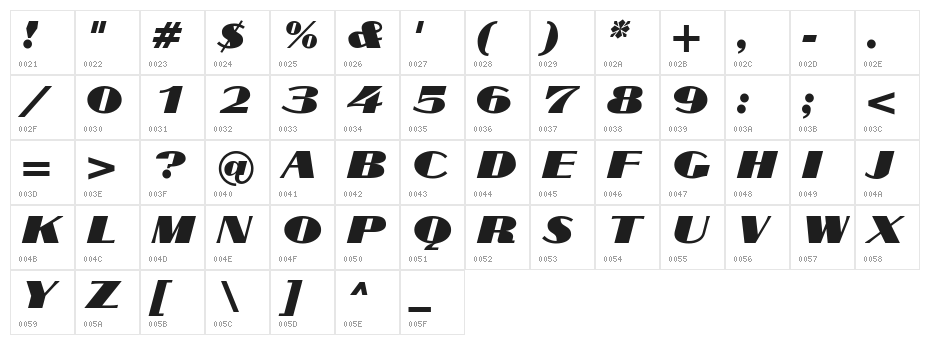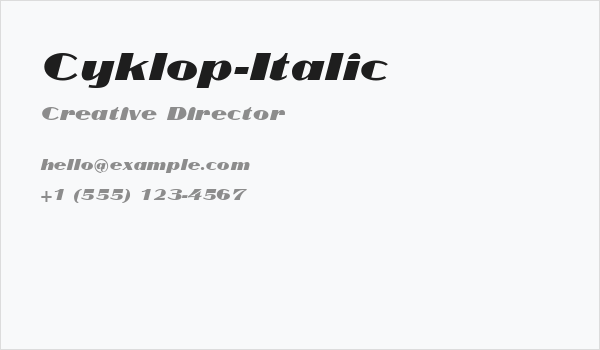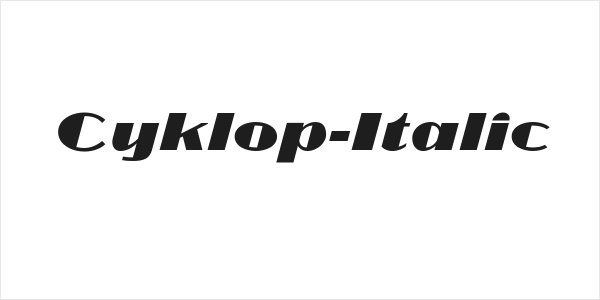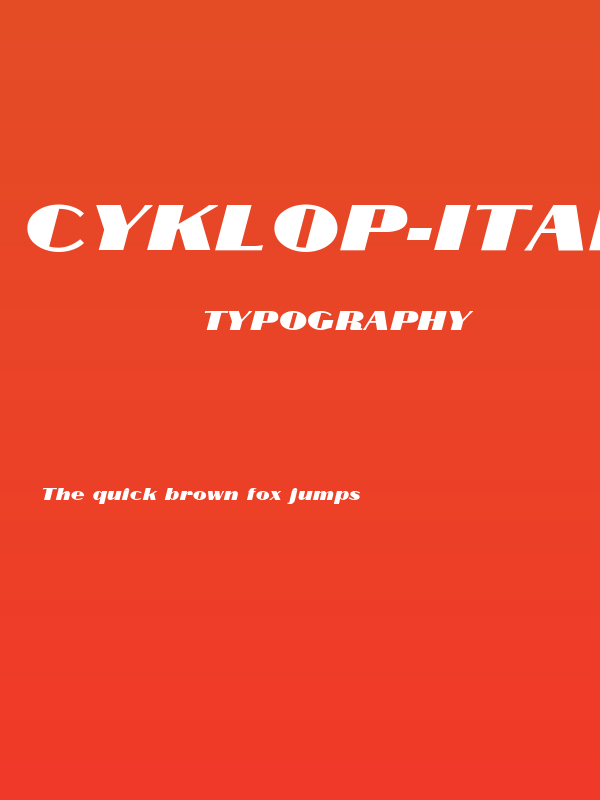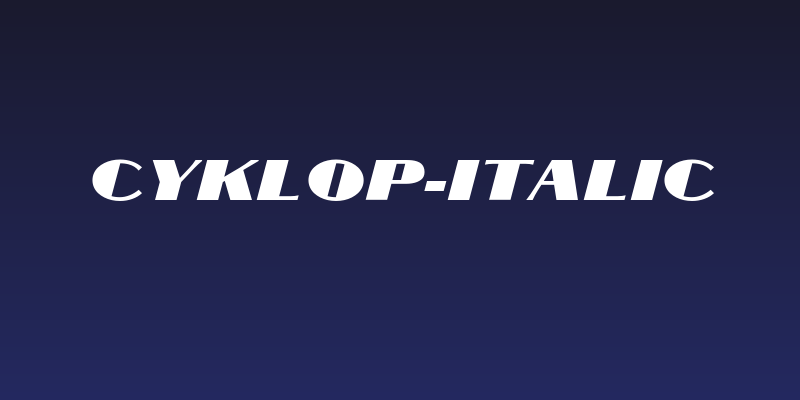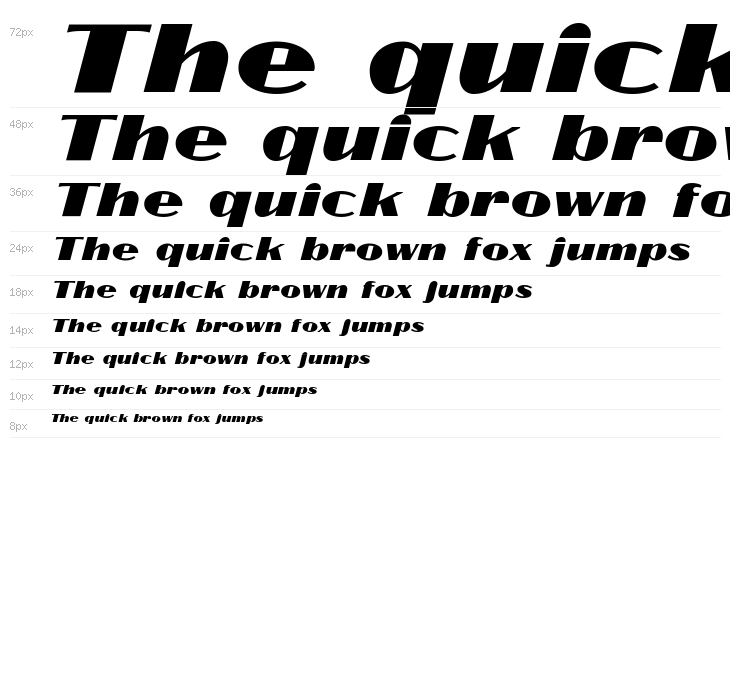
Cyklop-Italic Font
Cyklop-Italic Description
This font features a bold and dynamic italic style with a strong presence. The characters are slanted, giving a sense of motion and energy. The uppercase letters are robust and commanding, while the lowercase letters maintain a consistent flow. The numerals are clear and bold, ensuring readability. Special characters are designed to match the overall bold and italic aesthetic, making them suitable for impactful designs. The font's style is suitable for projects that require a strong and energetic visual impact.
| Proposed Projects | Ideal for branding, headlines, posters, and advertising materials that require a bold and energetic look. |